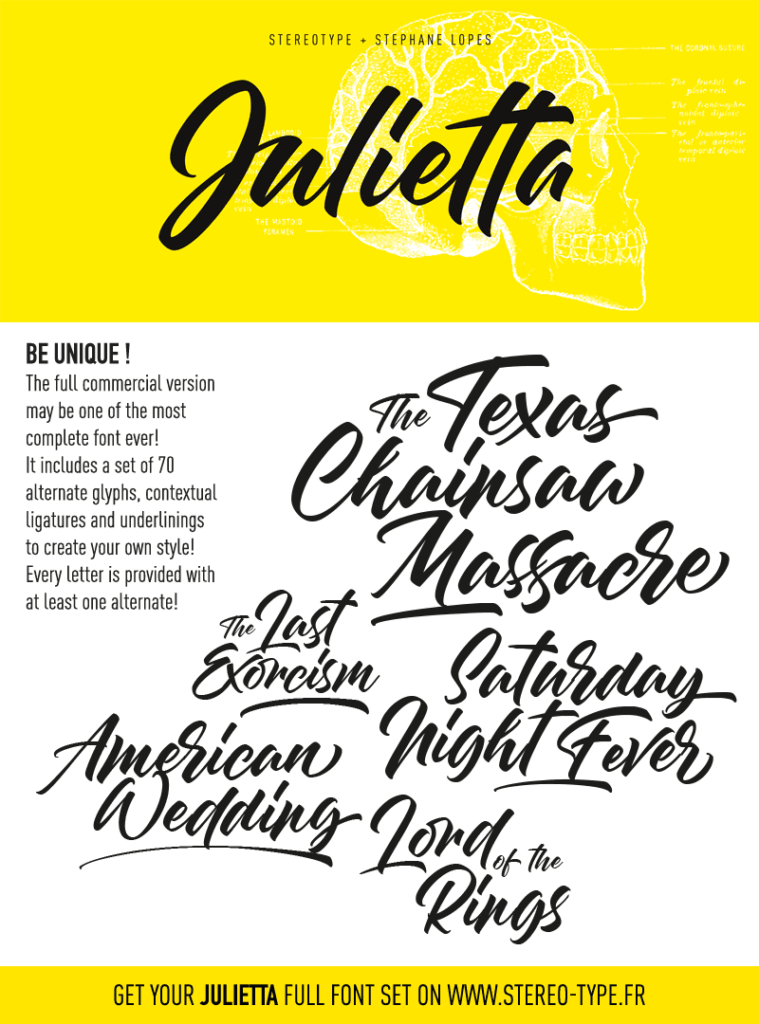
Julietta Script
The gorgeous new Julietta Script Font is now available! Julietta was created using OpenType features and contains swashes at the start and end of words, numbers, punctuation, alternatives, ligatures, and support for various languages. Julietta is a stylish script typeface inspired by Stéphane Lopes’ calligraphy. The complete commercial edition includes a considerable number of 70 alternatives, contextual ligatures, and underlining. The Styled Script created and distributed the typeface.
It’It’s a great choice for logos, wedding invites and cards, and maybe even a red wine label. This is a cross between two styles; you may use it for both modern minimalism and old-skilled penmanship. You can experiment with the font by using light colors like yellow or bright green.